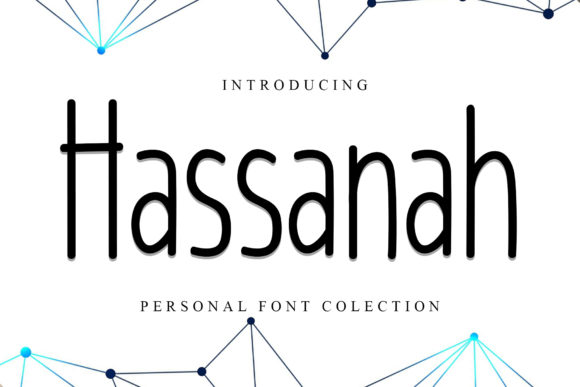
Hassanah Font
Experience the elegance and simplicity of Hassanah Font, crafted by dazzlinggleam, a display font family that captivates with its clean lines and timeless charm.Hassanah is the ultimate choice for designers seeking clarity and distinction in their creations. Its effortless versatility makes it a perfect match for an array of projects, from captivating logos and alluring branding to eye-catching posters and impactful headlines.
Indulge in the beauty of Hassanah's meticulously designed characters, each stroke imbued with precision and grace. Its delicate curves and sharp edges dance together in perfect harmony, creating a font that exudes both sophistication and playfulness. Hassanah's simplicity is its strength, allowing it to blend seamlessly with diverse design aesthetics, enhancing them with a touch of understated elegance.
Unleash your creativity with Hassanah, a font that empowers you to craft designs that resonate with your audience. Whether you're a seasoned designer or just starting your creative journey, Hassanah is your trusted companion, guiding you towards visual excellence. Its intuitive flow and effortless readability make it a joy to work with, transforming your design ideas into polished masterpieces.
With Hassanah, you'll discover a font that's not just a tool, but an extension of your artistic vision. Its versatility knows no bounds, adapting effortlessly to any project you envision. From elegant wedding invitations to dynamic social media posts, Hassanah takes your designs to new heights, leaving a lasting impression on your audience.
Hassanah is more than just a font; it's an invitation to embark on a creative adventure, where your imagination takes center stage. Its enchanting simplicity and timeless appeal will elevate your designs, capturing hearts and minds with its undeniable charm. Embrace the power of Hassanah and witness the transformation of your creative ideas into stunning realities.